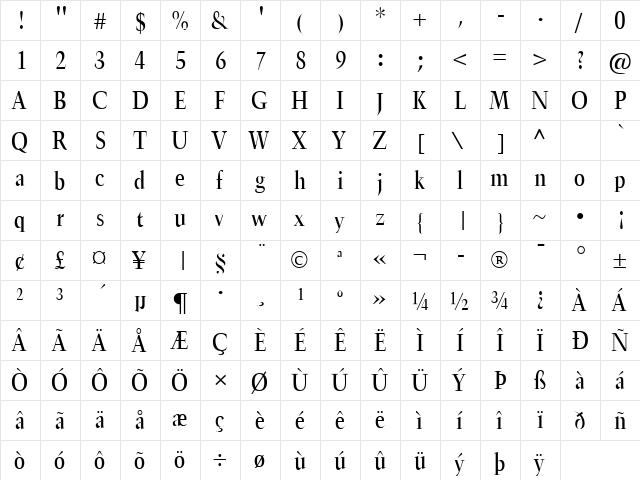
TrumpetLite Regular
Design Context for TrumpetLite Typeface
TrumpetLite takes a measured approach to typography — its balanced proportions and neutral character make it a reliable workhorse for both digital and print work.
Pro Tip: Use TrumpetLite in both headline and body roles to test its range before committing to a single application.